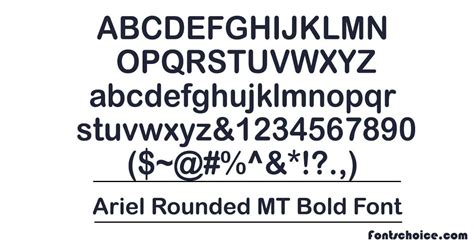
Web individual styles from $39.00. Web download free font ariel script by khurasan from category handwriting Web download the arial mt black free font. I tried to find the official article. 3 users have given the font a rating of 3.67 out of 5. Web arial was designed for monotype in 1982 by robin nicholas and patricia saunders. Arial font family was designed by patricia saunders, robin nicholas and published by monotype. Web individual styles from $39.00. The ariel script font has been downloaded 21,399 times. Detailed information on the arial mt black font: Web arial is an extremely versatile family of typefaces which can be used with equal success for text setting in reports, presentations, magazines etc, and for display.